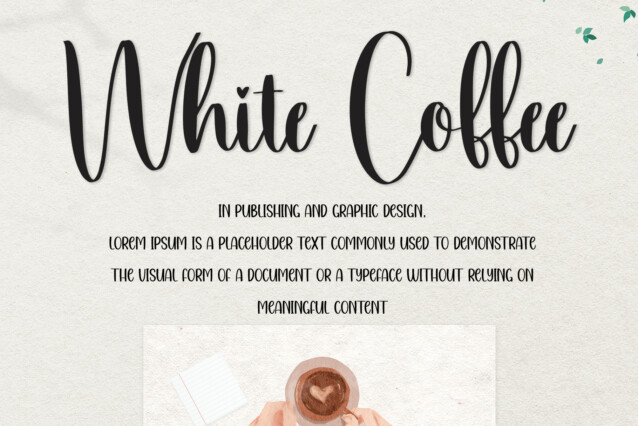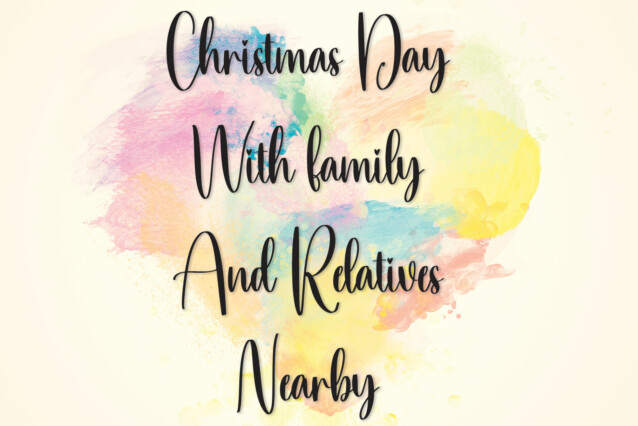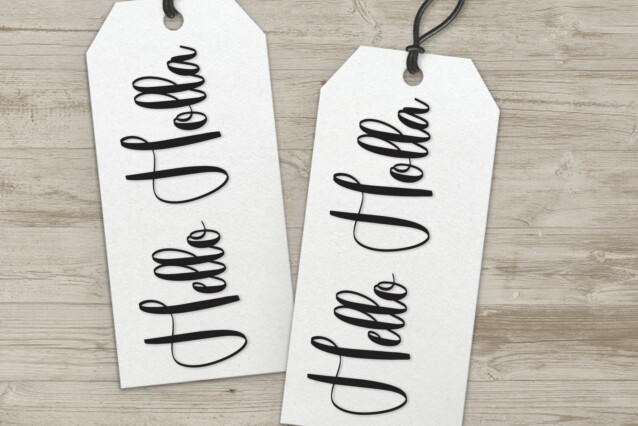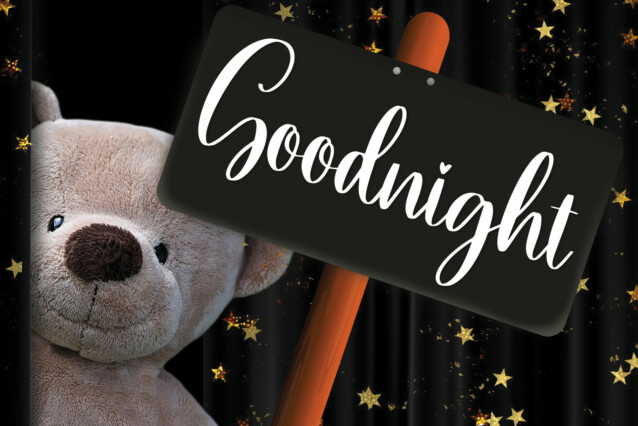
Cottage Script Font
Cottage Script Font is a modern and neat handwritten font. No matter the topic, this font will be an incredible asset to your fonts’ library, as it has the potential to elevate any creation.